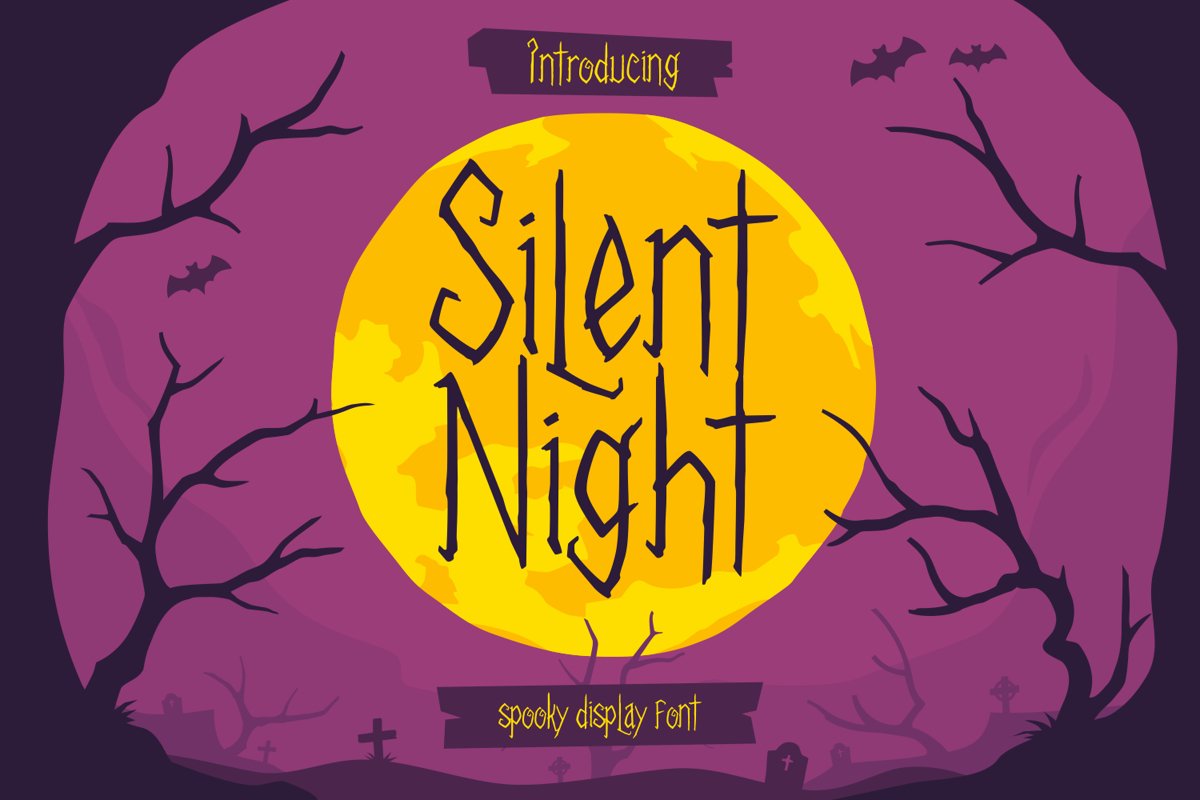
Silent Night - Spooky Font
Silent Night
Silent Night is spooky handwritten font, inspired by dreadful of halloween. Perfect for any Halloween-themed project!